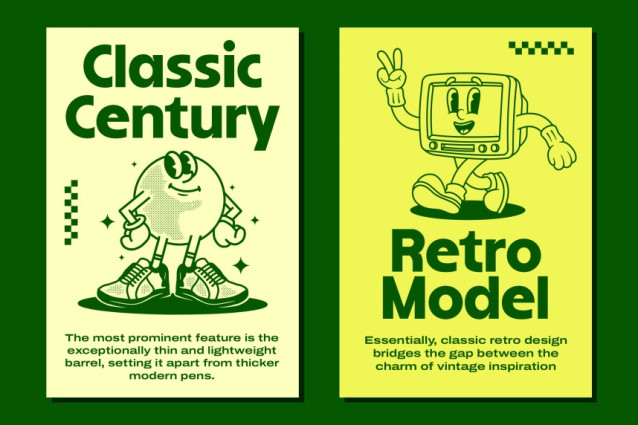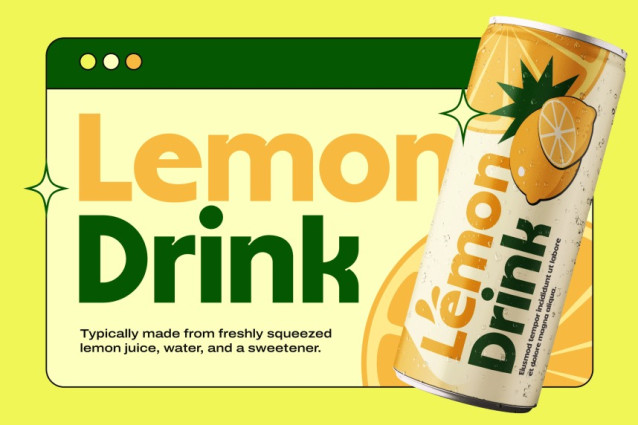
Parket Font
Parket Font is a bold sans display font with a retro-inspired character and clean, modern construction. Featuring thick strokes, soft curves, and balanced proportions, Parket delivers a strong visual presence while remaining friendly and highly readable.
The design blends vintage charm with contemporary simplicity, making it versatile for both playful and professional projects. With full uppercase and lowercase support, Parket works smoothly across headlines, branding, and bold typographic layouts.
Parket is built to feel warm, confident, and timeless, perfect for designers who want bold typography without sharp or aggressive edges.